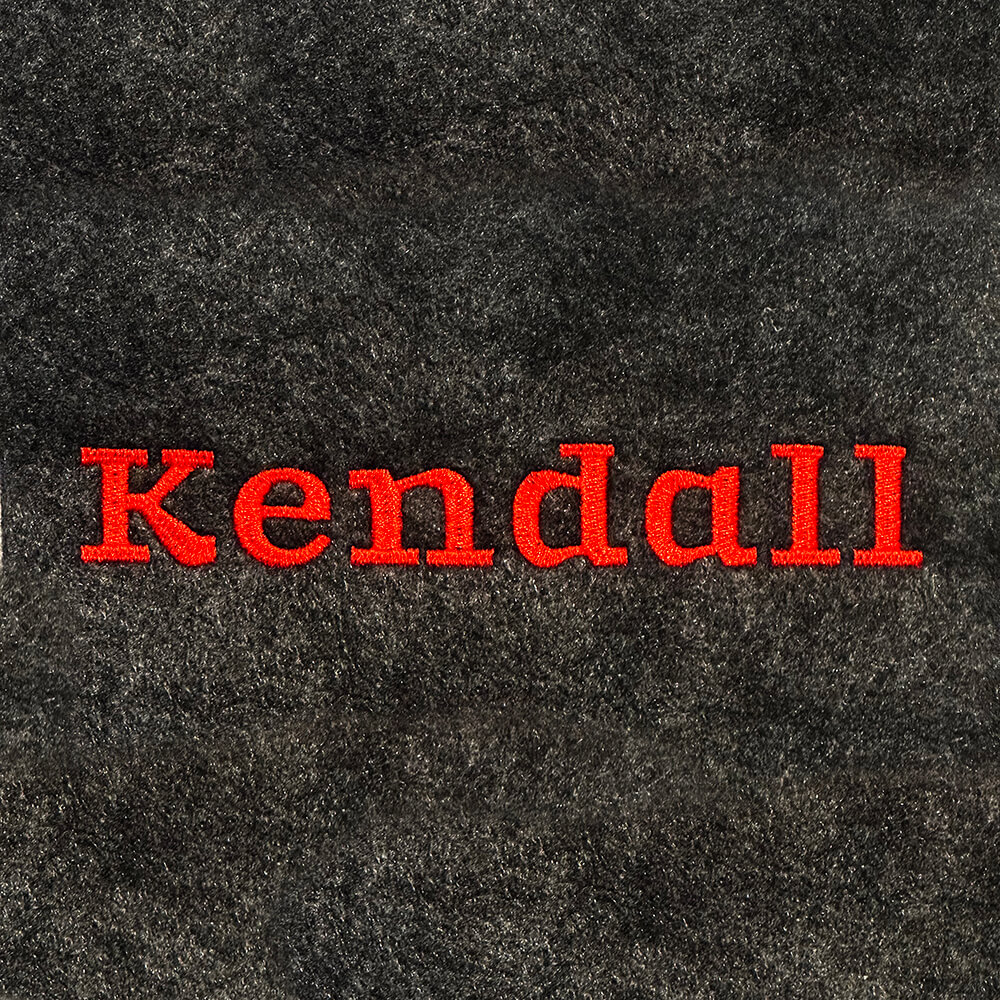
Kendall Embroidery Font
The Kendall BX embroidery font is a modern blocky serif typeface combining bold lines with clean, structured details for a contemporary yet classic look.
Kendall Embroidery Font